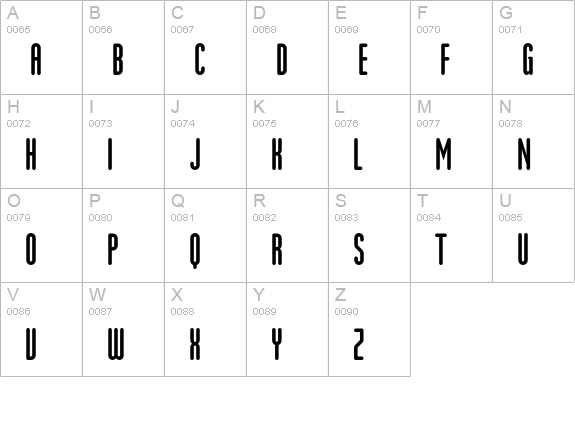
MartenCyr-Regular Font Details
MartenCyr-Regular is the standard, neutral variant in the MartenCyr typeface family \xE2\x80\x94 well suited to general body text, paragraphs, and standard typographic work.
MartenCyr-Regular is a versatile and modern font that is perfect for a wide range of design projects. This font features a sleek and contemporary design with clean lines and a balanced letterform. The strokes are bold and confident, making it ideal for headlines, logos, posters, and other branding materials. One of the standout features of MartenCyr-Regular is its versatility. Whether you're looking to create a professional and corporate look or a more playful and creative design, this font can do it all. It is suitable for both digital and print applications, ensuring that your designs will look great no matter where they are displayed. One of the best things about MartenCyr-Regular is that it is free to download and use. You can easily access this font at FontsMarket.com, where it is available for free. This means that you can add a touch of modernity and sophistication to your designs without having to invest a large amount of money. MartenCyr-Regular is the perfect choice for designers who are looking for a high-quality and stylish font that won't break the bank. So why wait? Download MartenCyr-Regular now and start creating stunning designs that will capture attention and leave a lasting impression. With its sleek and contemporary design, versatility, and the fact that it is freely available at FontsMarket.com, MartenCyr-Regular is a must-have font for any designer.